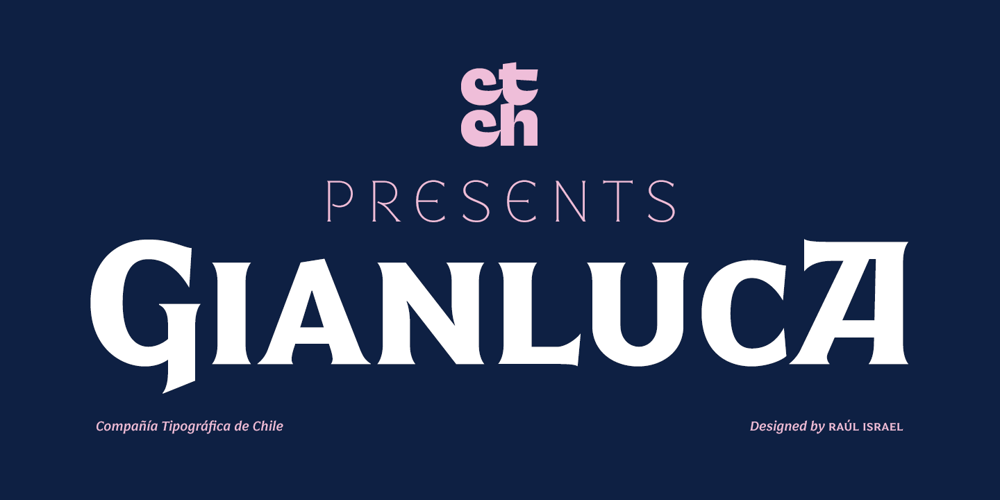
LC Gianluca
LC Gianluca font
LC Gianluca Font Family was designed by Raúl Israel and published by Compañía Tipográfica de Chile. LC Gianluca contains 10 styles and family package options. Gianluca is a typeface of glyphic serif, or “flare” inspired by Aldo Novarese’s fonts from the 70s, with a fresh and modern touch. It is a type family that can be elegant in its normal version, or very playful, to compose from extensive texts to flashy headlines in books, magazines, labels, posters, branding and more. It has many discretionary ligatures in capital letters (with its diacritics) to play with the text, 5 stylistic sets: among them medieval style or references to Herb Lubalin, and some special letters. Gianluca consists of 5-weight fonts, from Thin to Extra Bold. All of them with matching italics. It has a nice set of small capitals, modern and old style numbers, and capital-sensitive punctuation, among other striking glyphs. Play with Gianluca!